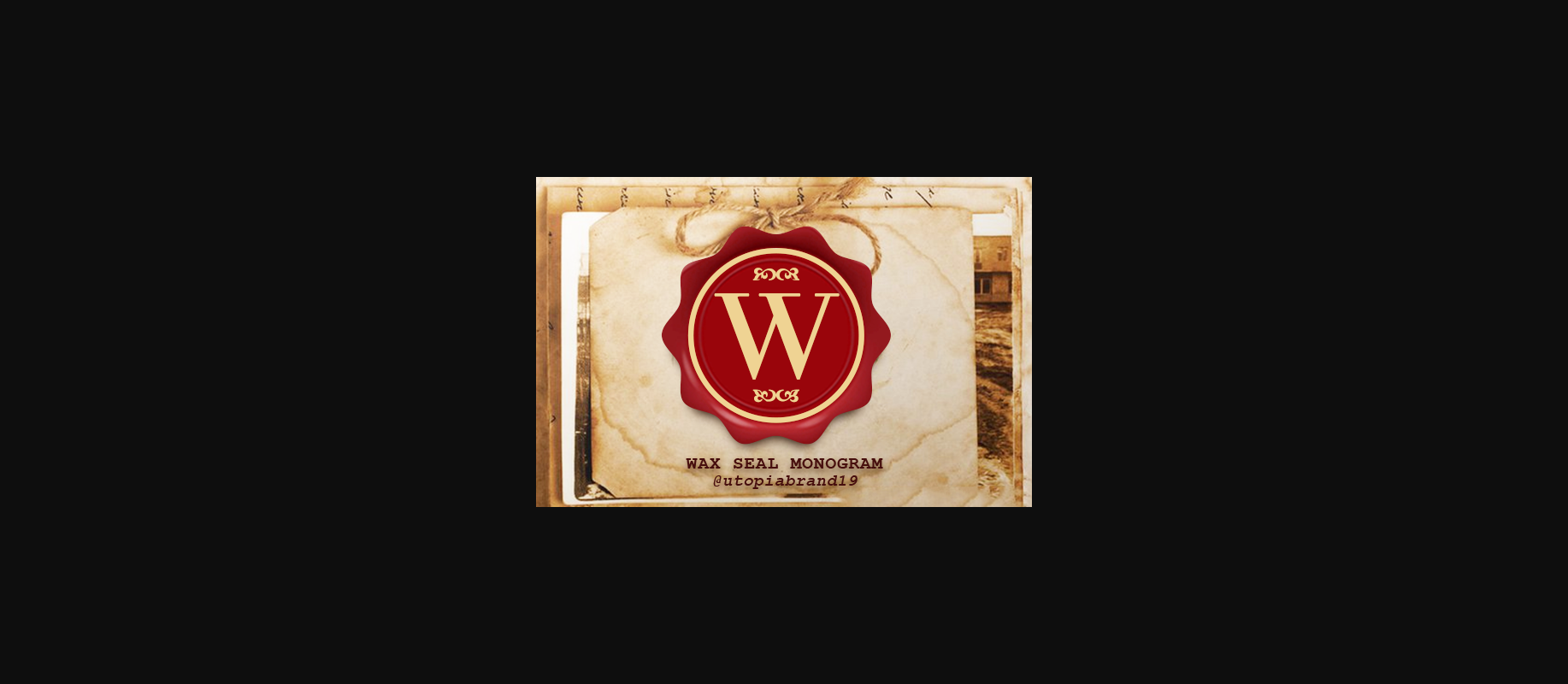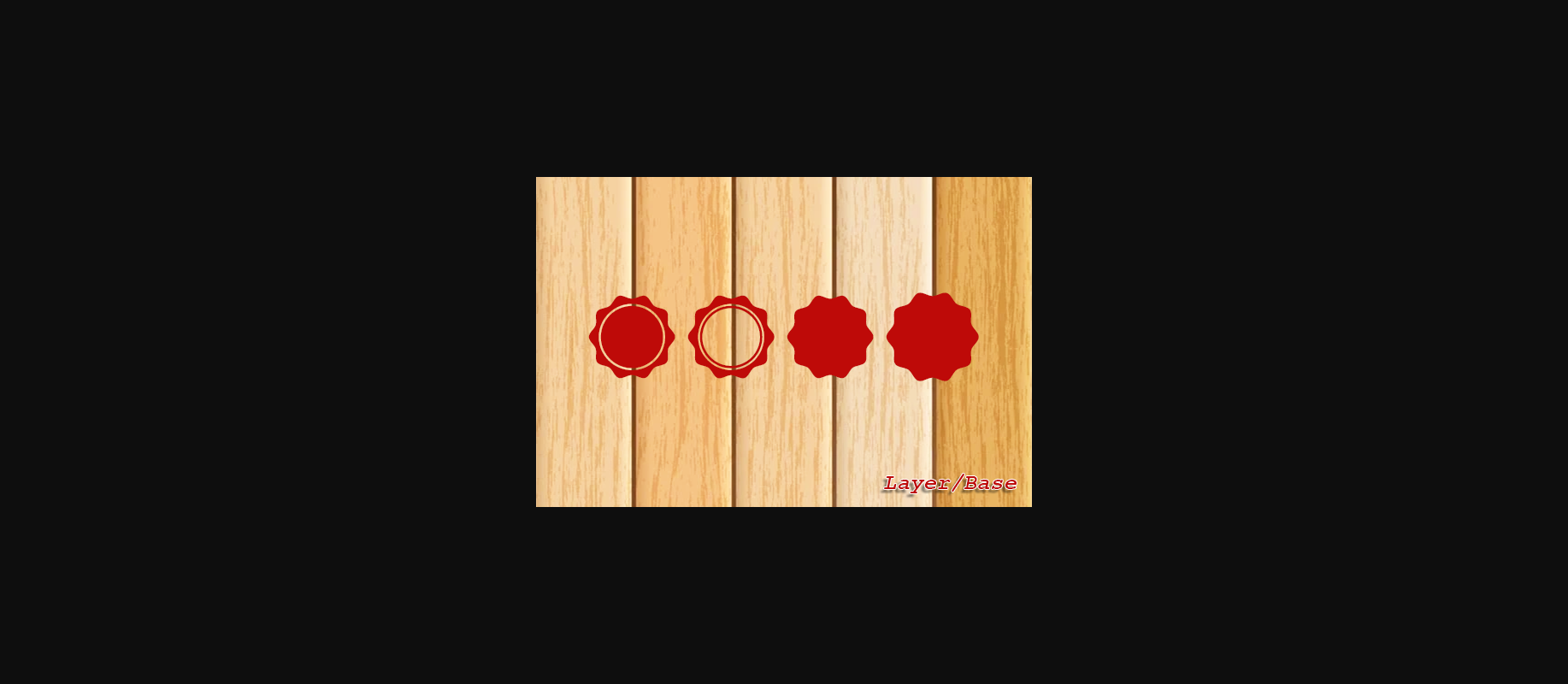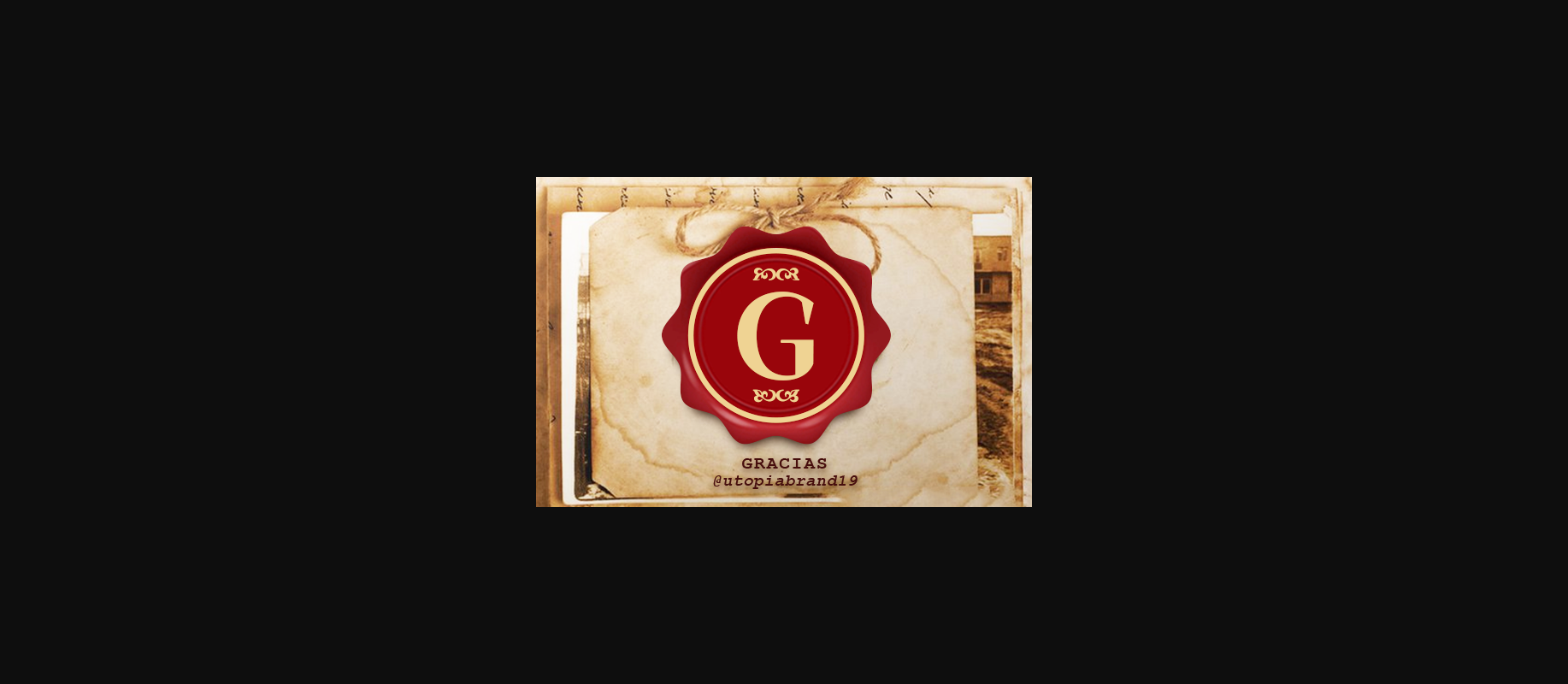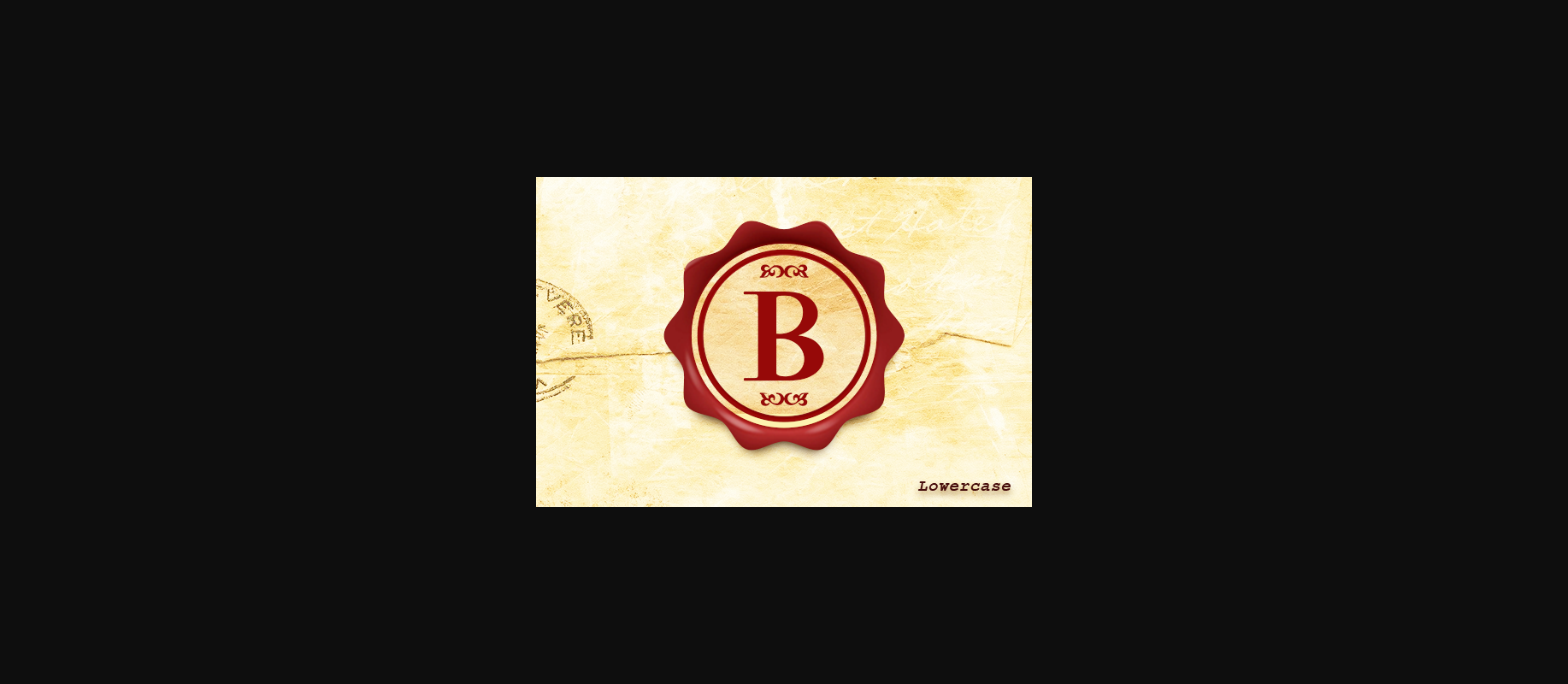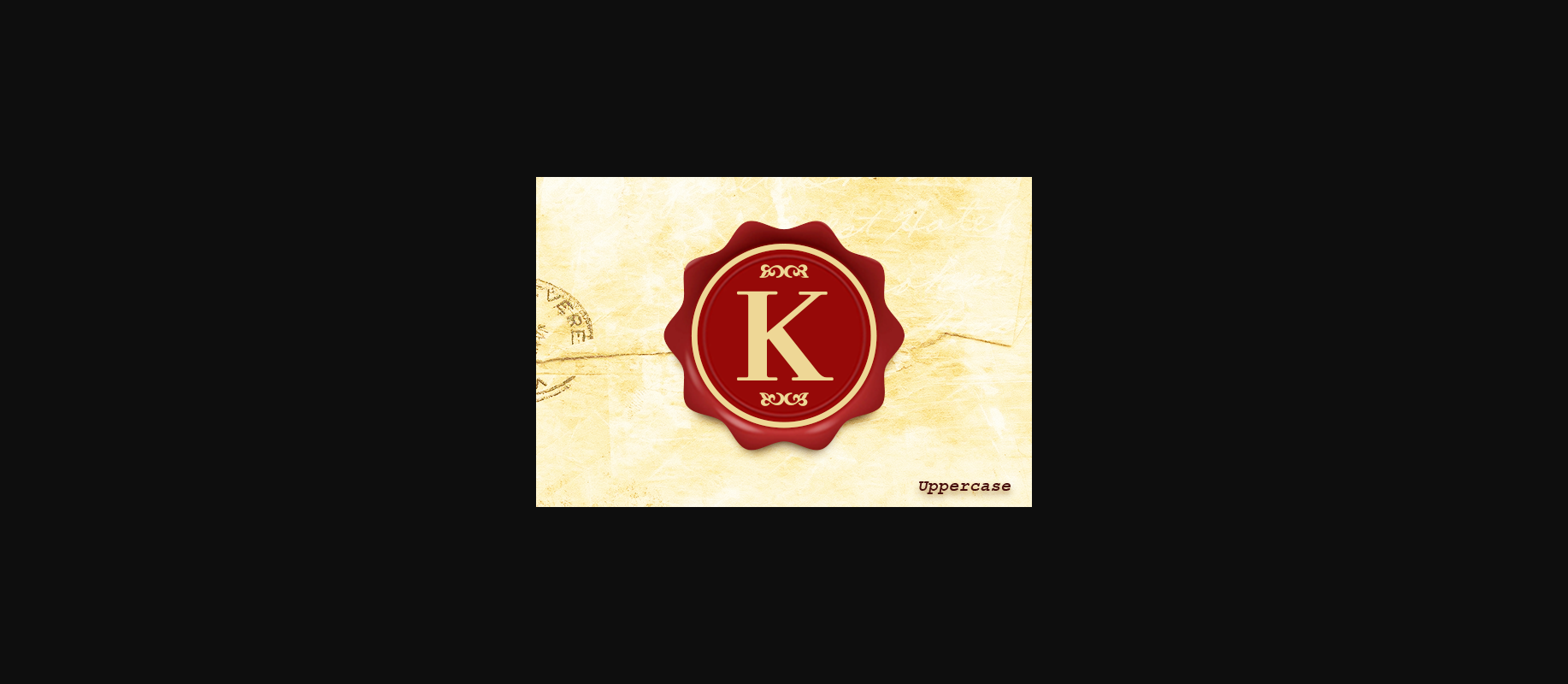
Wax Seal Monogram Font
About Wax Seal Monogram Font
Wax Seal Monogram is a dainty and uniquely designed decorative font. Add this romantic and lovely-looking font to each of your love letters, wedding invitations, or favorite design ideas, and you will be astounded by the outcome!